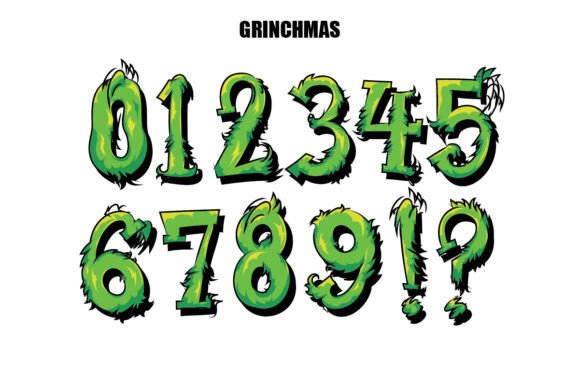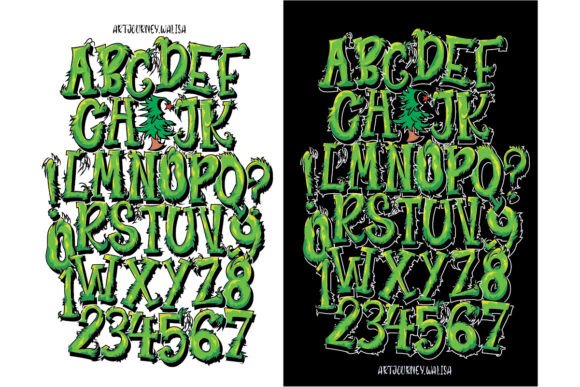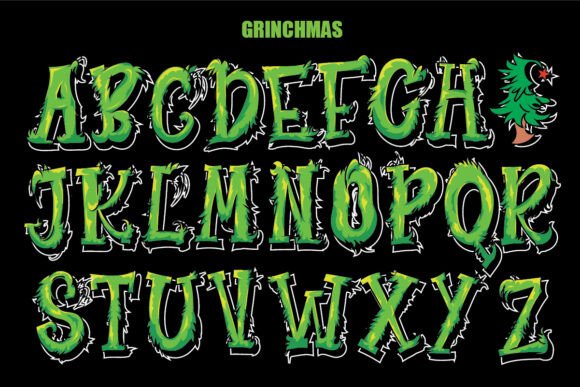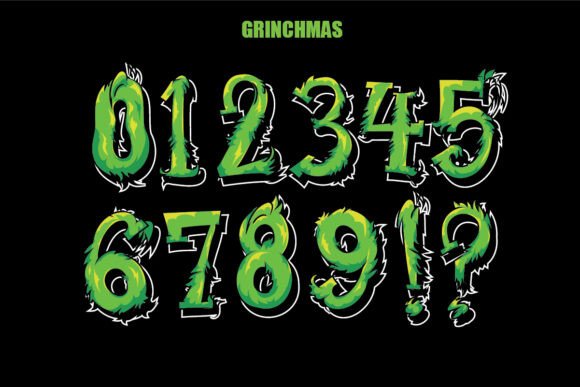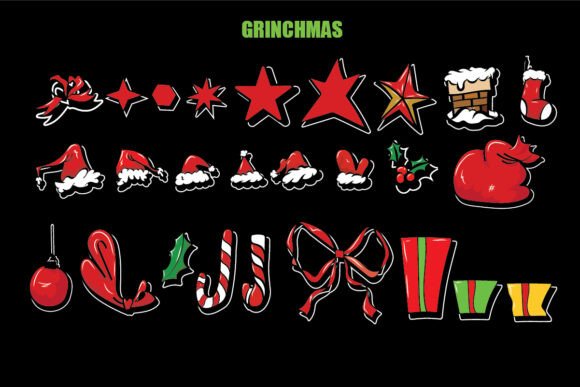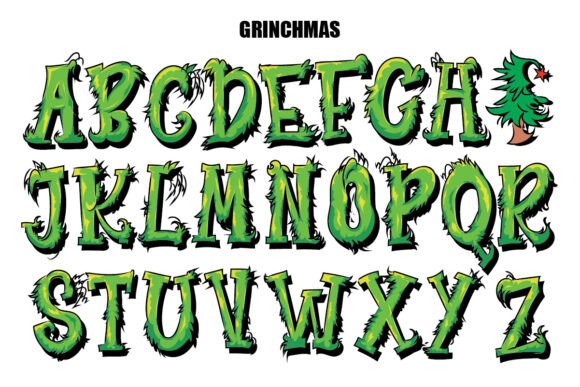
Getting into the Holiday Spirit with Grinchmas Font
It’s that time of the year again when designers and crafters are on the lookout for the perfect font to add some holiday cheer to their projects. I still remember the year I was working on a Christmas-themed party invitation and struggled to find a font that captured the playful yet spooky vibe I was going for. The client wanted something that would appeal to fans of the Grinch, and I was determined to deliver. That’s when I stumbled upon the Grinchmas Font, a hand-drawn alphabet design that perfectly embodied the Grinch’s mischievous spirit.
What Makes Grinchmas Font So Special?
The Grinchmas Font is a unique and bold Christmas-themed design that features green Grinch letters and adorable Christmas elements. It’s perfect for horror party invitations, t-shirt designs, stickers, and digital art projects. The font’s playful and quirky look is sure to delight December Happy season lovers.
- ✨ Unique and bold design that’s sure to stand out
The Story Behind Grinchmas Font
The Grinchmas Font was designed with the holiday season in mind. The creator wanted to capture the playful and mischievous spirit of the Grinch, while also incorporating festive Christmas elements. The result is a unique and bold font that’s perfect for designers and crafters looking to add some holiday cheer to their projects.